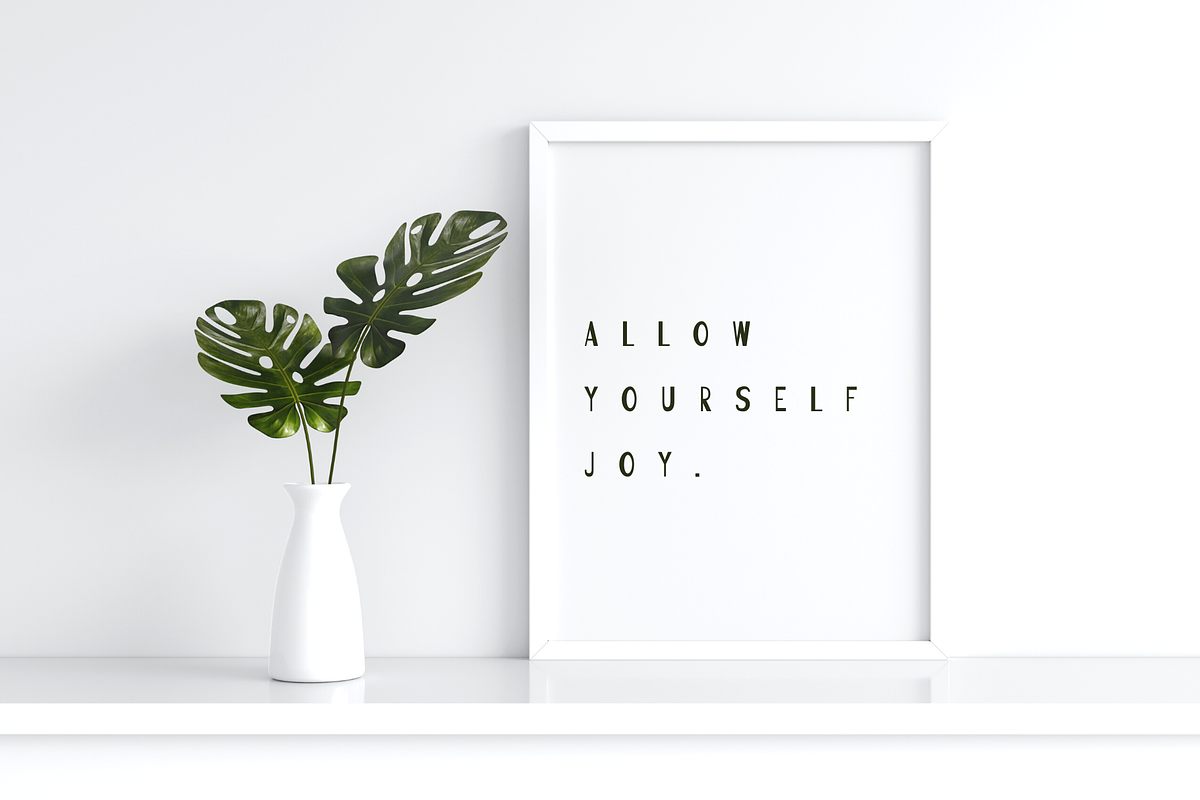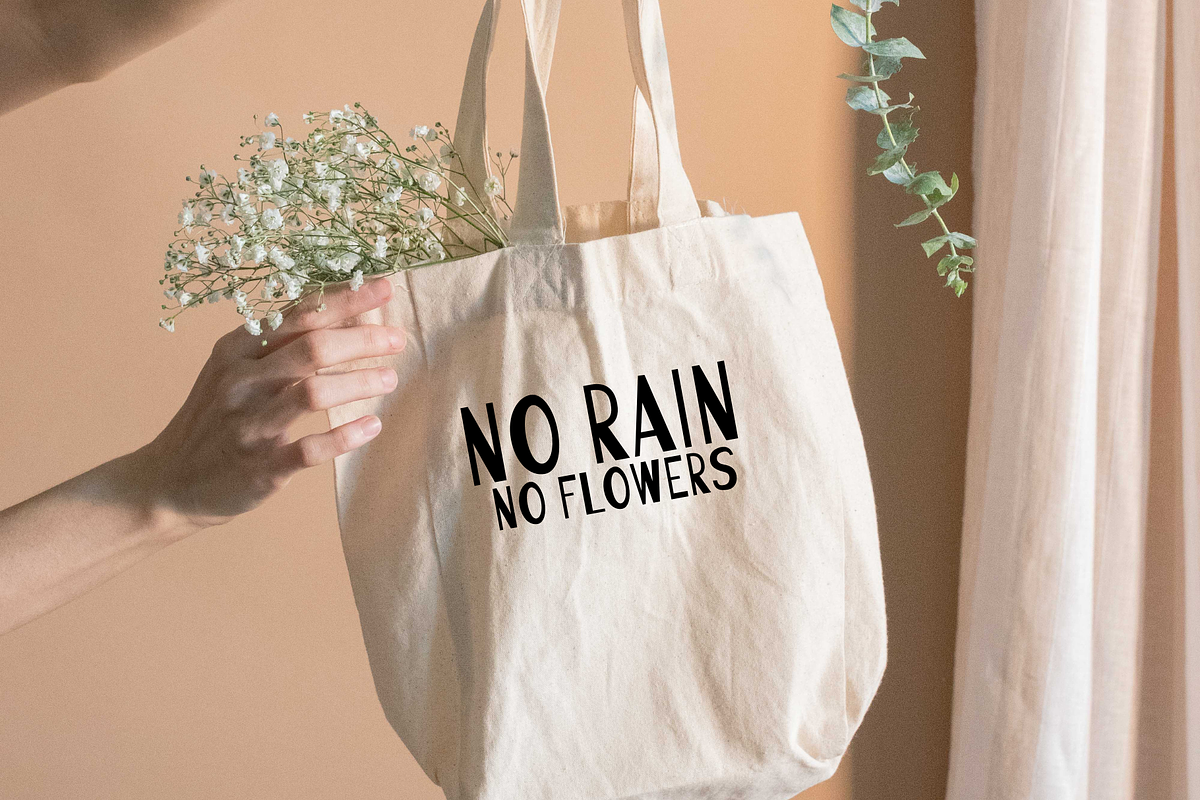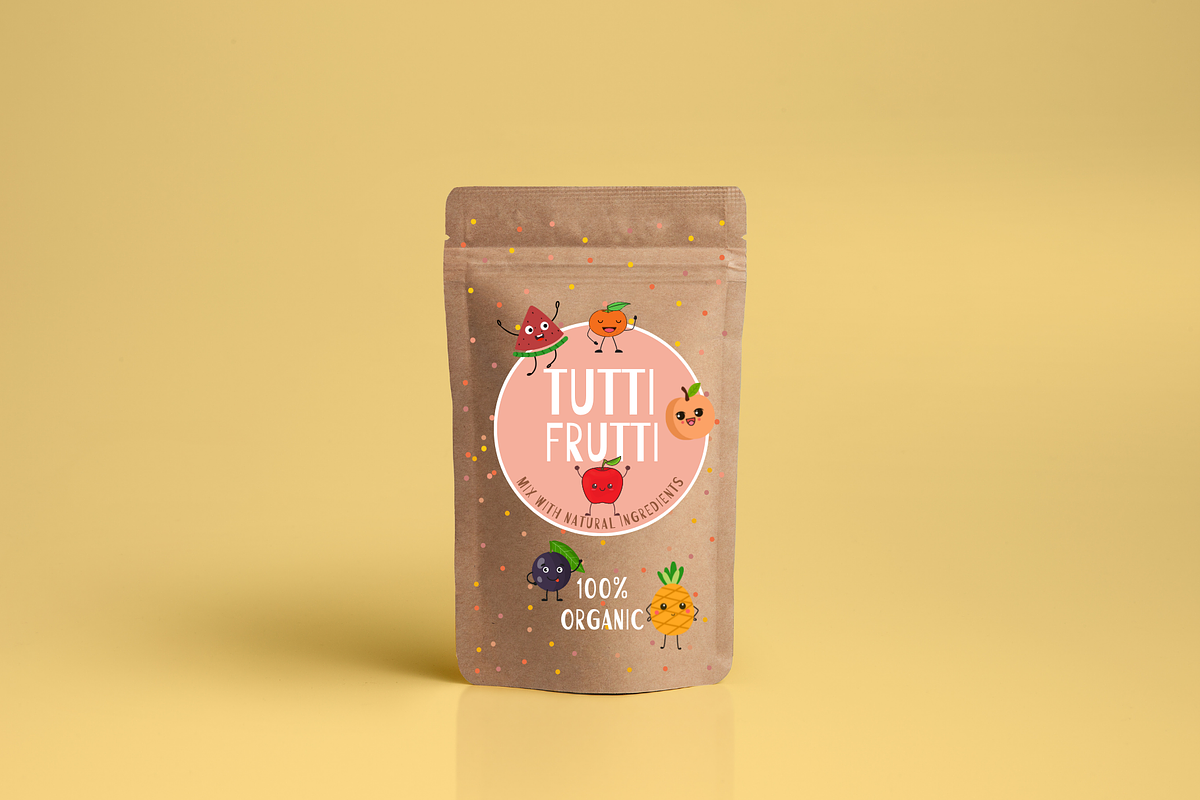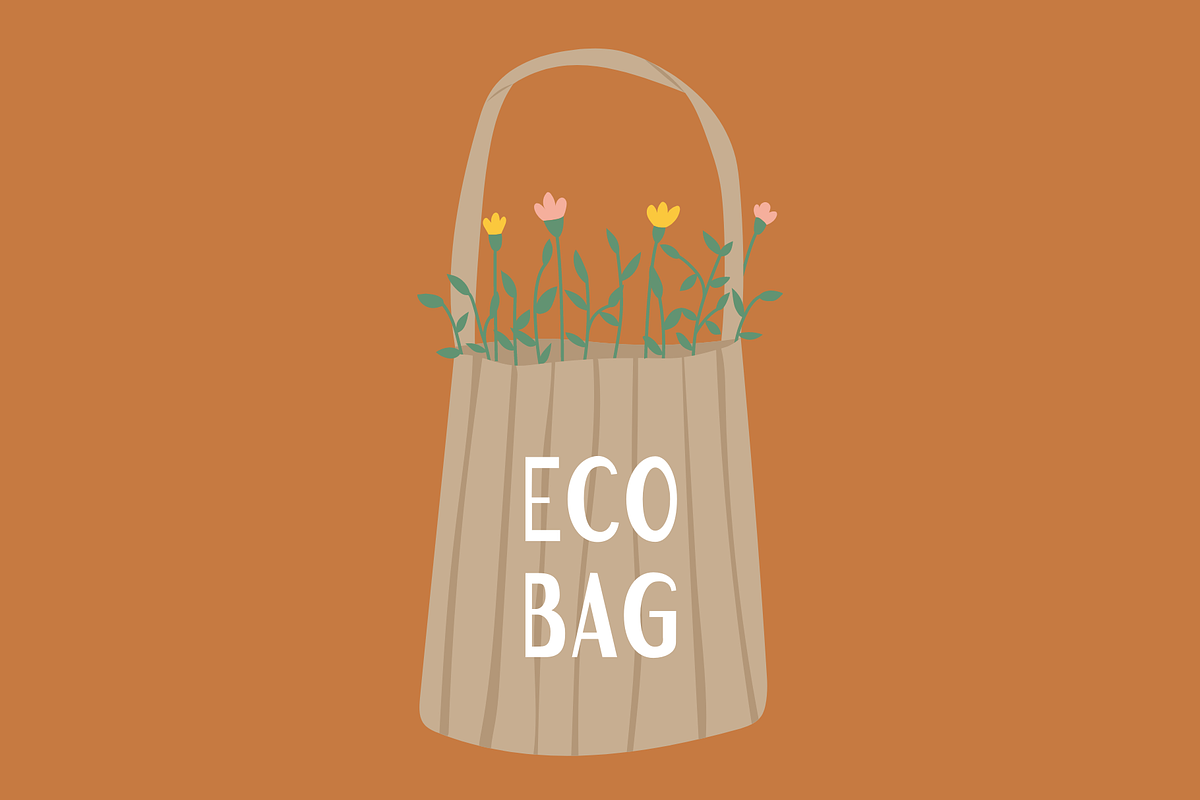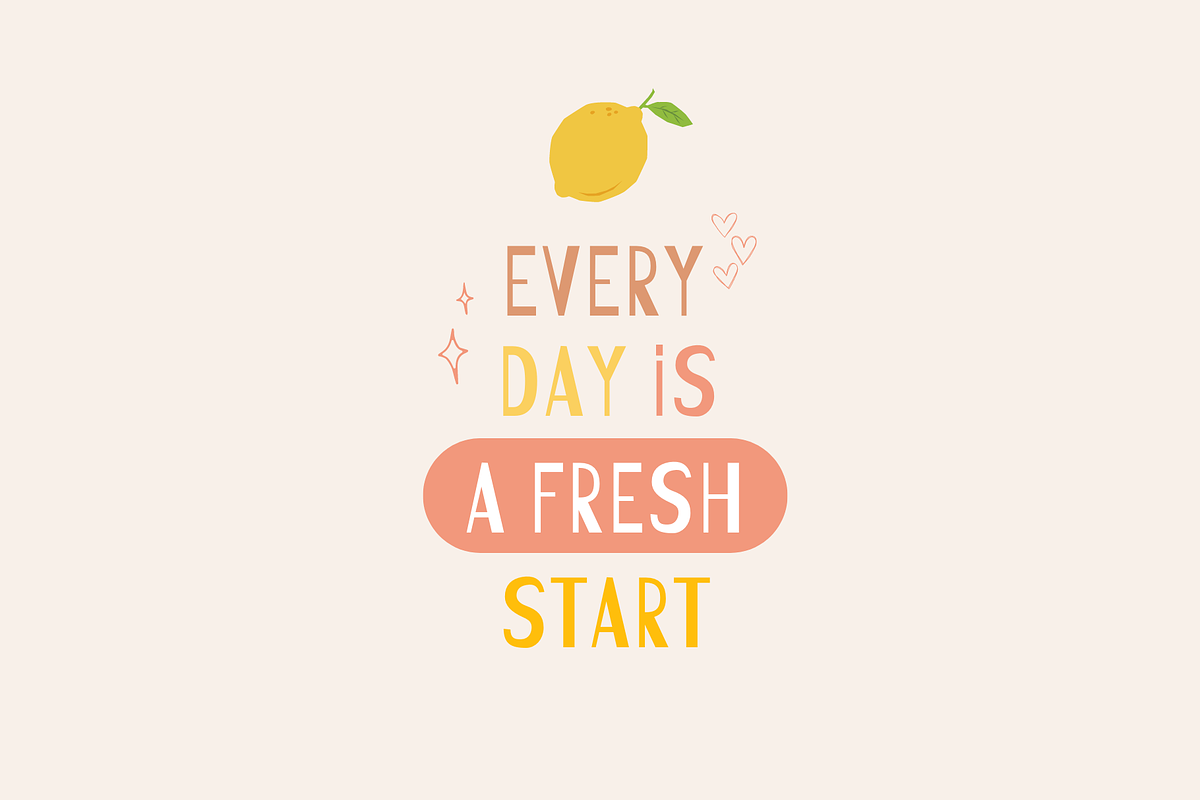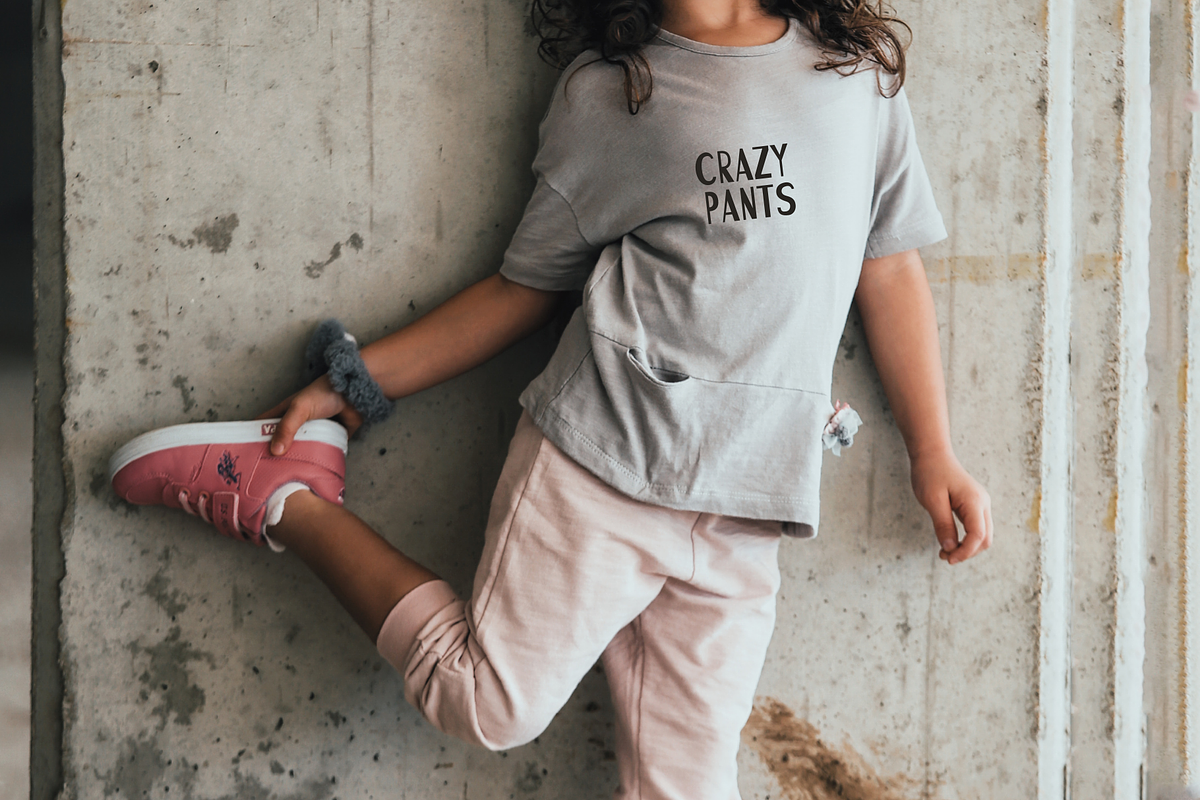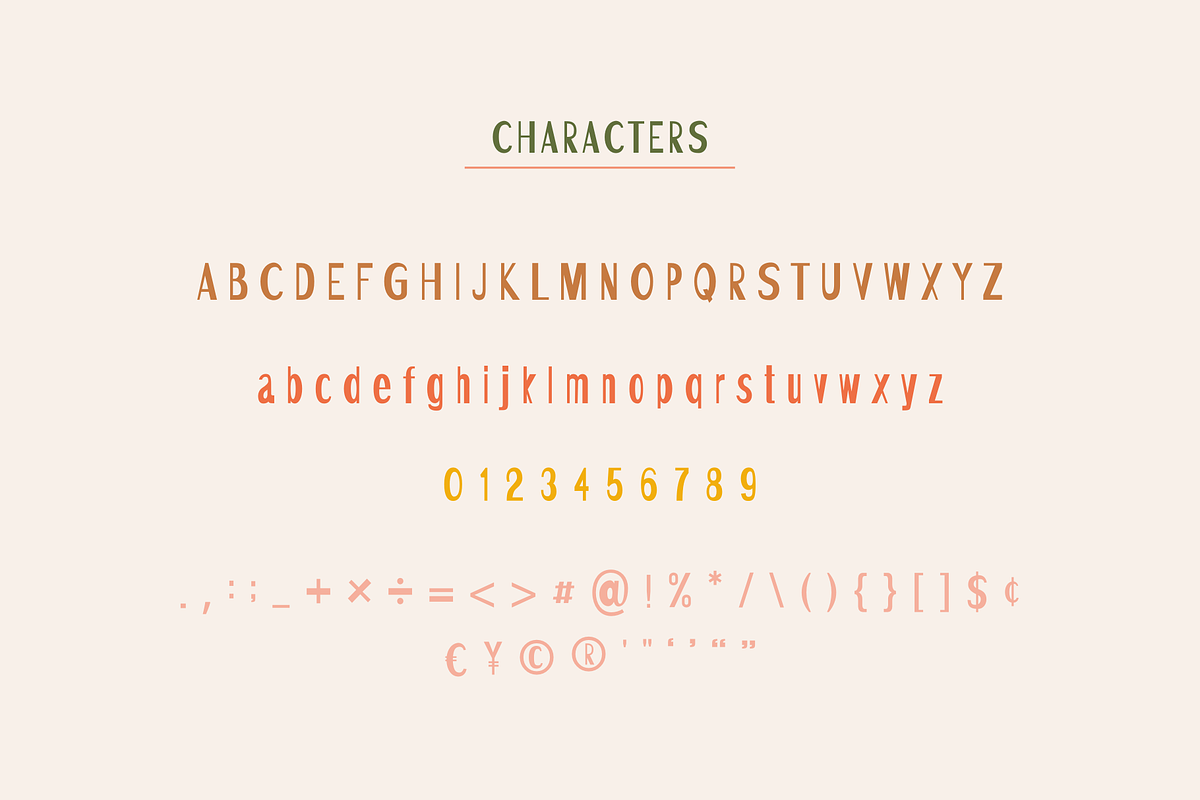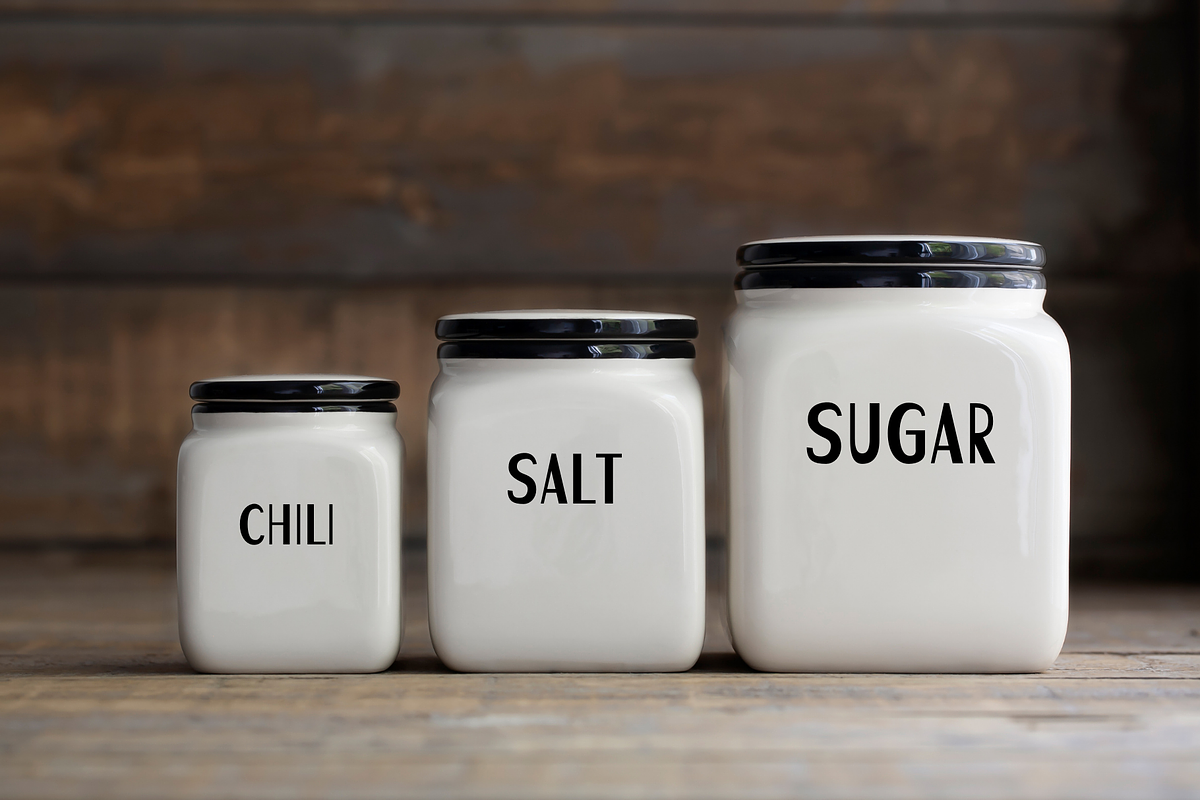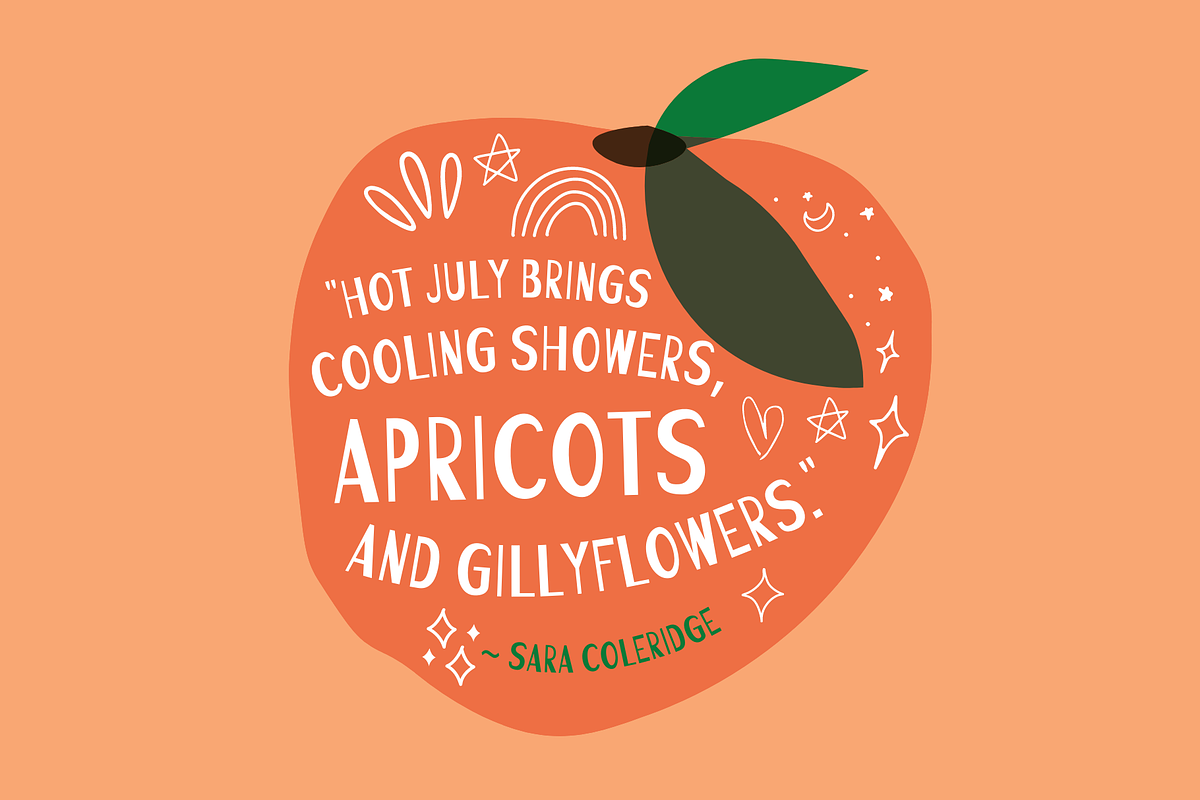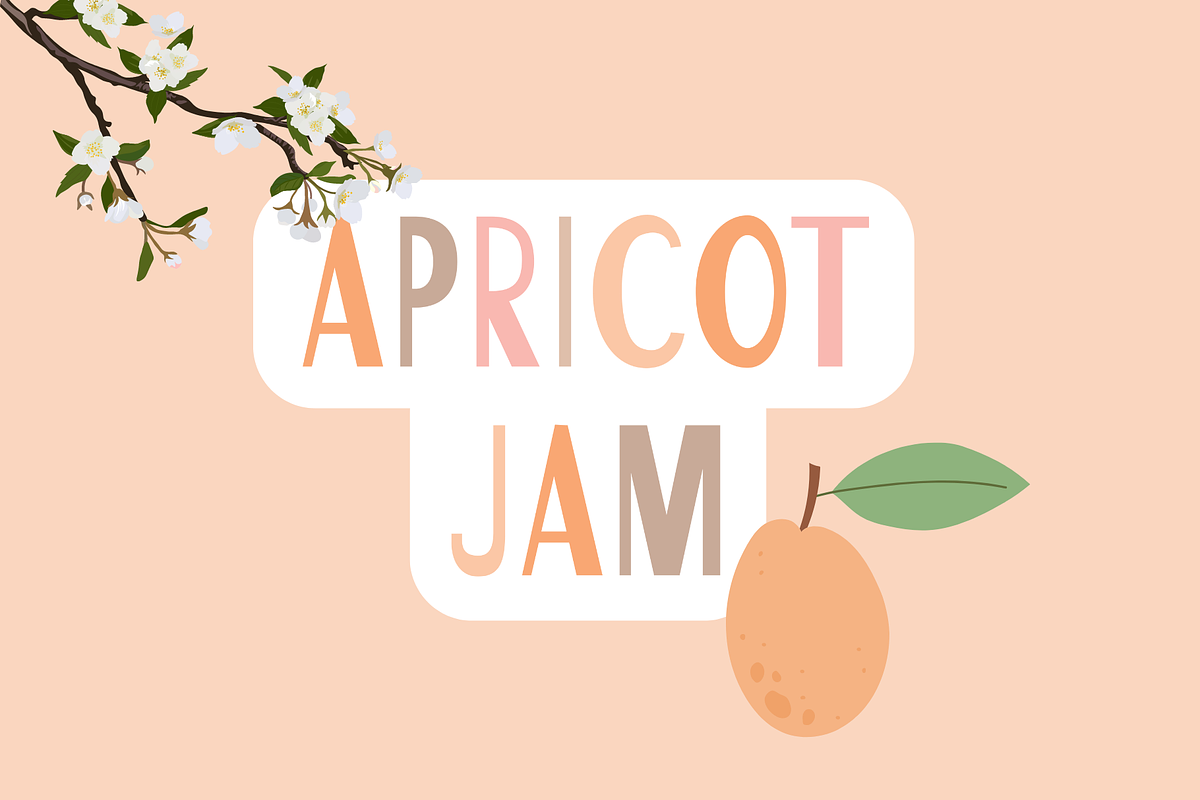
Apricot Jam
Use this font for your upcoming projects. Create beautiful logos, branding, notebooks, journals, labels, stickers, blogs, quotes, greeting cards, tea towels, apparel, pillows, mugs, toys, posters, baby clothing, picture books and so much more... basically anything that requires a cute look! 😍